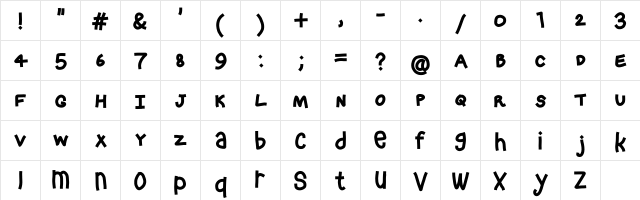
Crashy Medium Font Preview
Crashy Medium
Crashy Medium Font Details
Design Context for Crashy Typeface
Crashy is a composed and adaptable typeface that performs quietly and consistently across a wide range of design contexts.